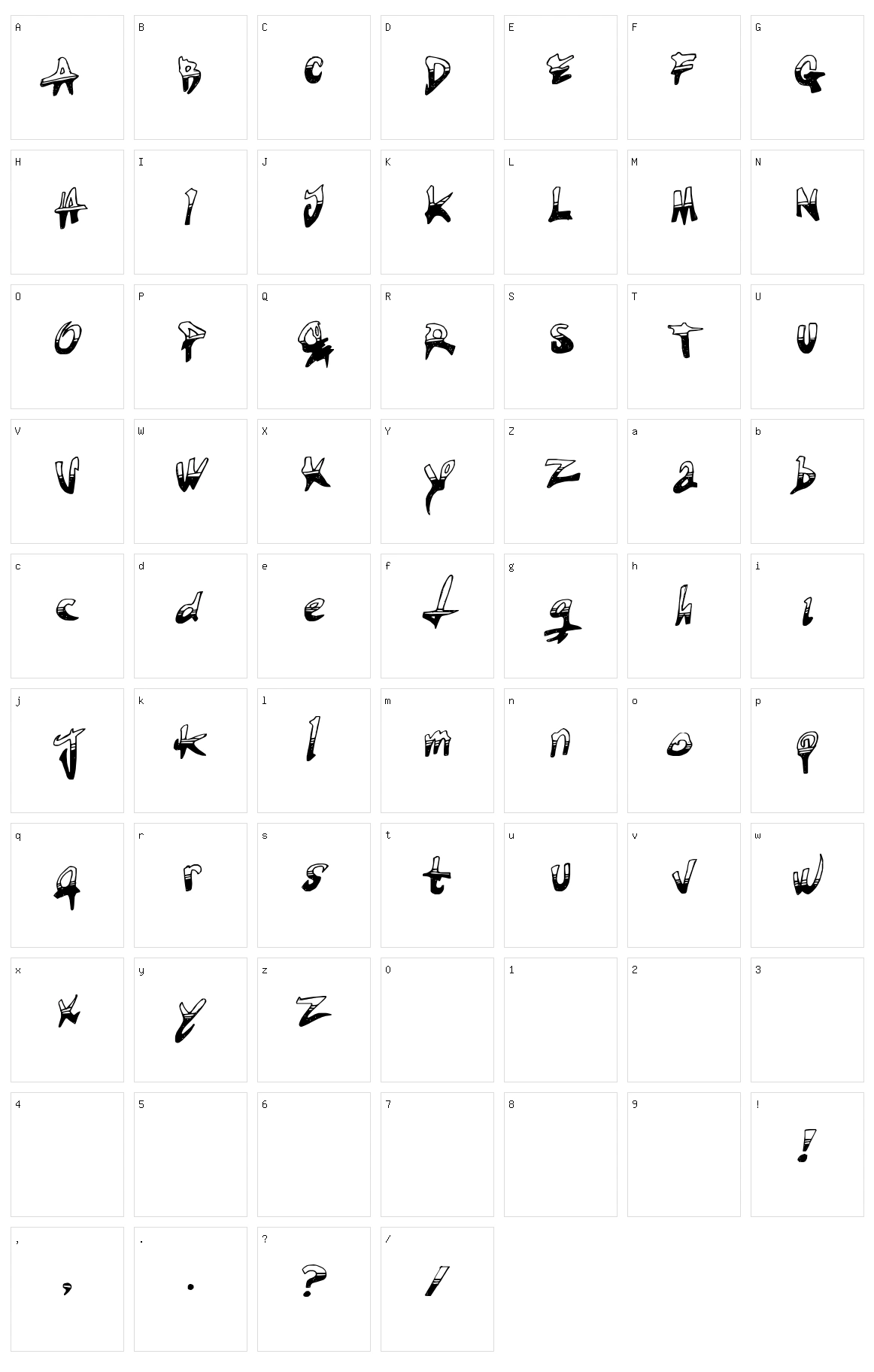
T I R E D T E R R O R I S T
Hello, is any members of Baader Meinhof in the
audience?? Lets hear it.. Terror! Terror!
Oh, here they come.. Are you feeling good, guys?
Aha, you're tired.. Tired of blowing planes up and
stuff? mmh, no answer.. al'righty..
Let the show begin..